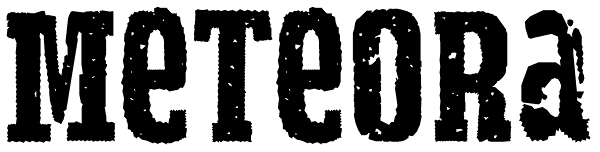
Meteora
Meteora is a font designed for headlines by Carlos Fabian Camargo Guerrero. Its purpose is to be useful tool for solving decorative problems in graphic design which require broken letters without ascending and descending strokes. Due to its vertical...